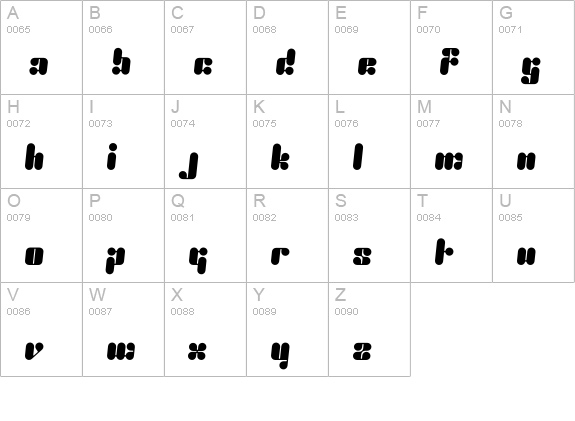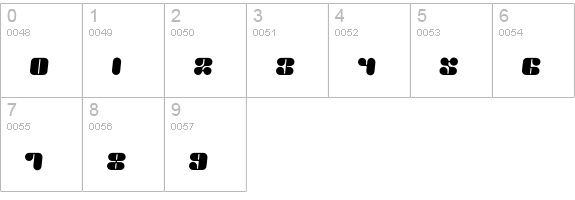
Proton-One Font Details
Introducing Proton-One, a sleek and modern font designed to elevate your designs to the next level. With its clean lines and contemporary feel, Proton-One is perfect for a wide range of projects, from branding to editorial design. This versatile font exudes sophistication and professionalism, making it a must-have for any designer looking to make a statement. The best part? Proton-One is completely free to download at FontsMarket.com, allowing you to access this high-quality font without breaking the bank. Whether you're working on a personal project or a client's design, Proton-One is sure to impress with its unique style and attention to detail. Don't miss out on this fantastic opportunity to enhance your work with Proton-One – download it today and take your designs to new heights.